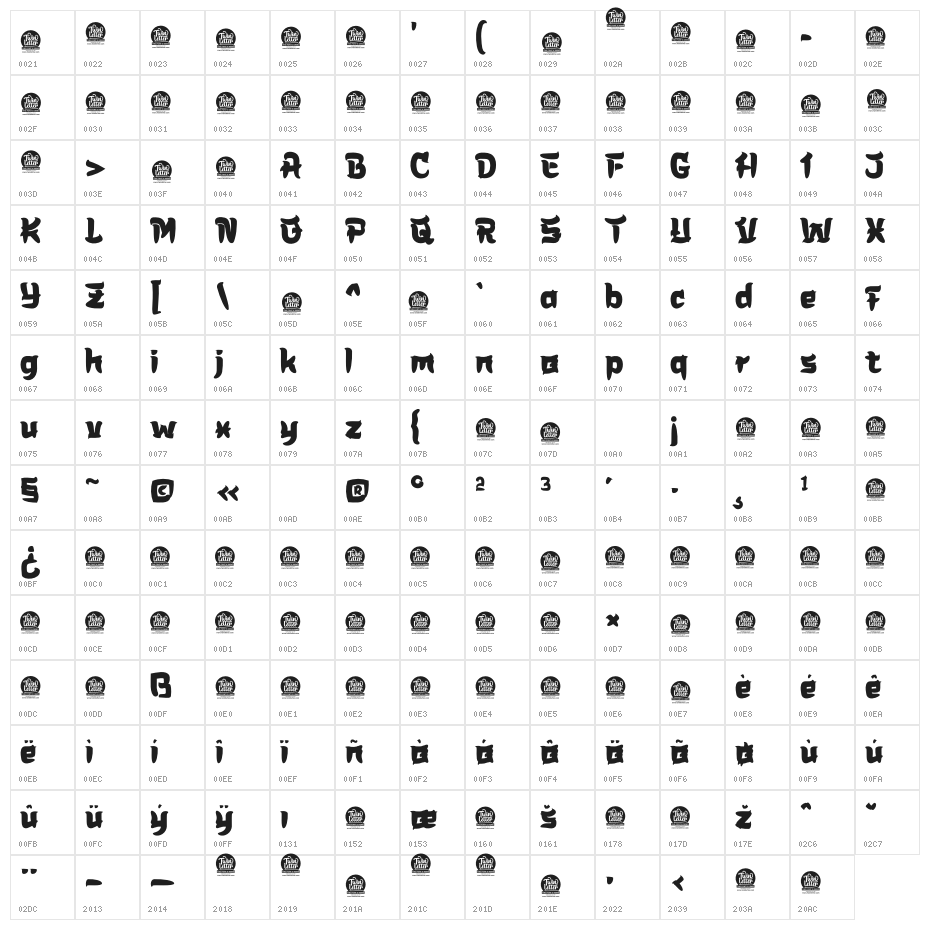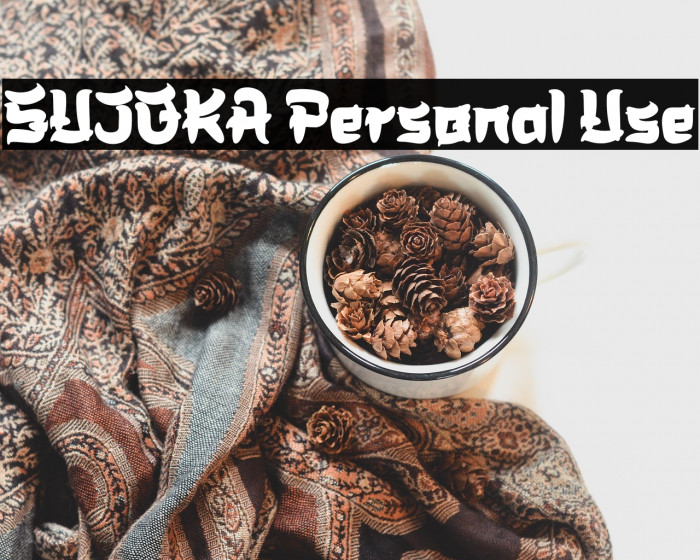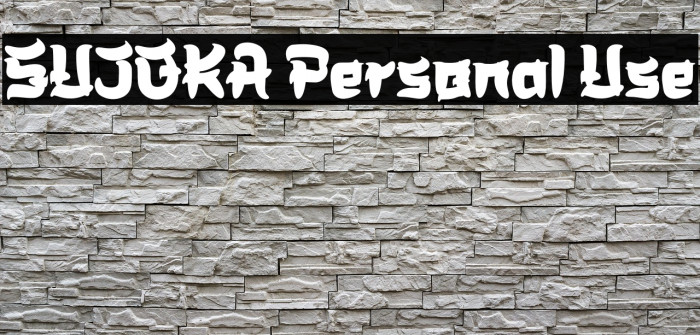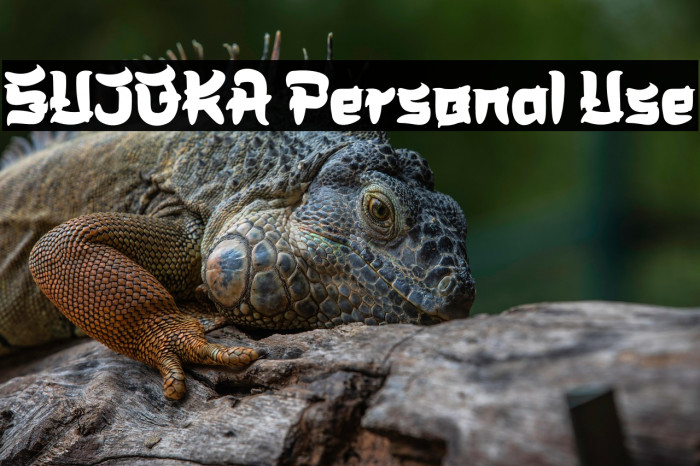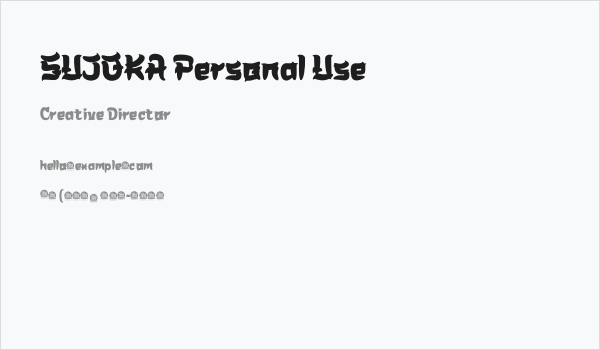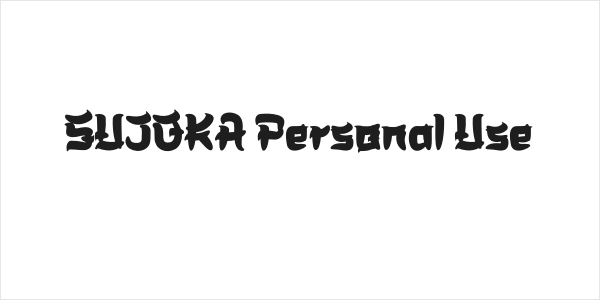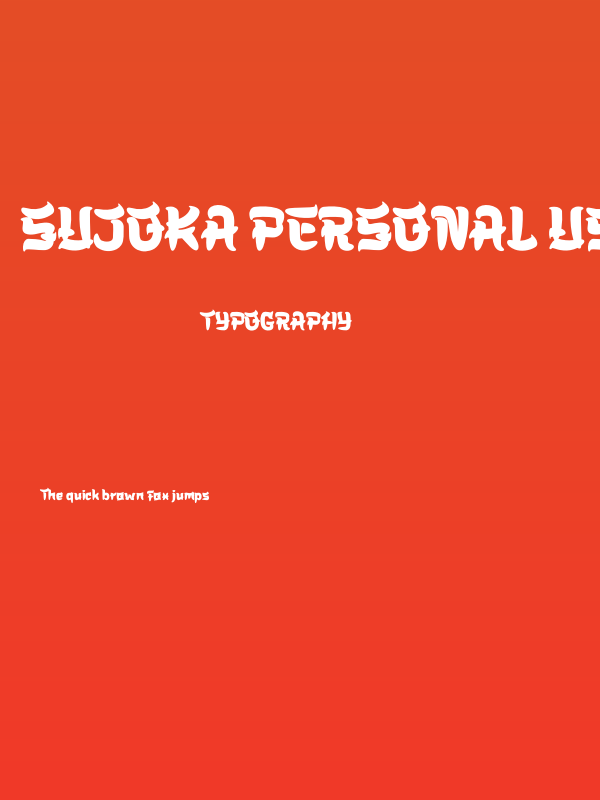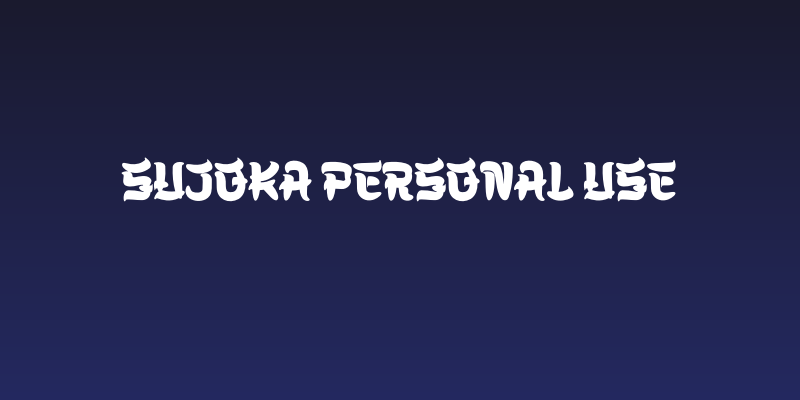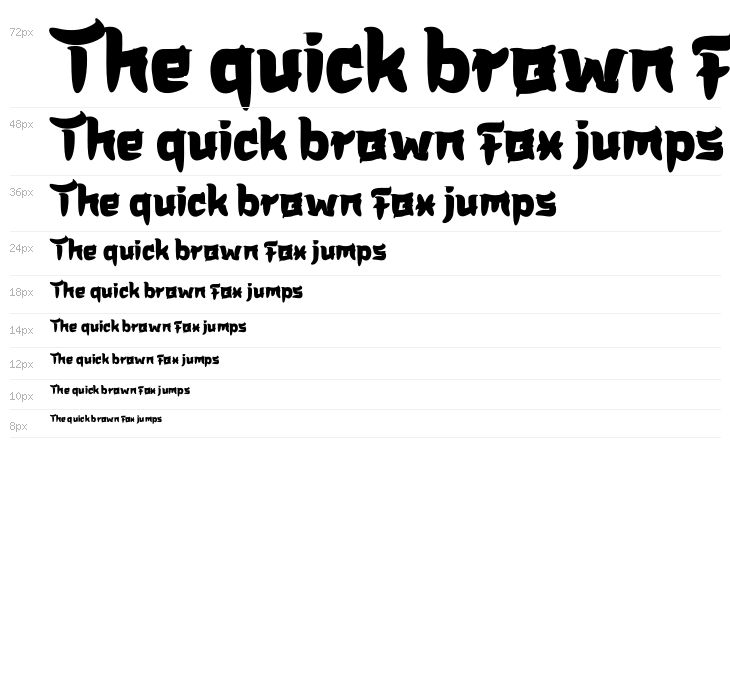
SUJOKA Personal Use Font
SUJOKA Personal Use Description
This font features a bold and dynamic style with thick, expressive strokes that give it a strong presence. The characters have a unique, artistic flair, with some letters incorporating sharp angles and others featuring smooth curves. The uppercase and lowercase letters maintain a consistent design, providing a cohesive look. The font's distinctiveness is further enhanced by its playful and slightly rebellious aesthetic, making it stand out in any design. The special characters are crafted with the same attention to detail, ensuring they blend seamlessly with the rest of the typeface.